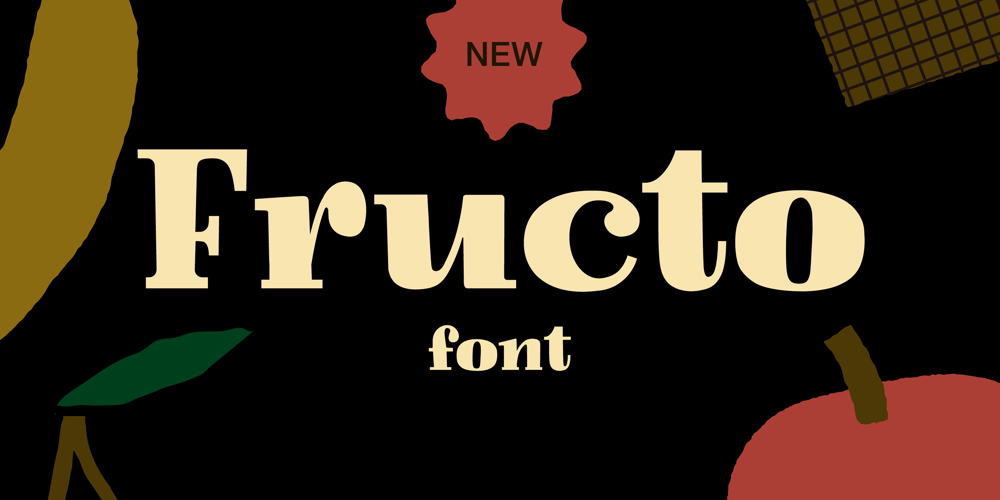
Fructo
Fructo font
Fructo Font Family was designed by Ada Napiórkowski and published by Literat Studio. Fructo contains 2 styles and family package options. Fructo is a playful typographic ode to the charm of Polish mid-century graphic design. With its fresh, fruity curves and striking presence, Fructo is ideal for making a statement in branding, book layouts, posters, or any design that needs a flavorful twist.270 languages supported.